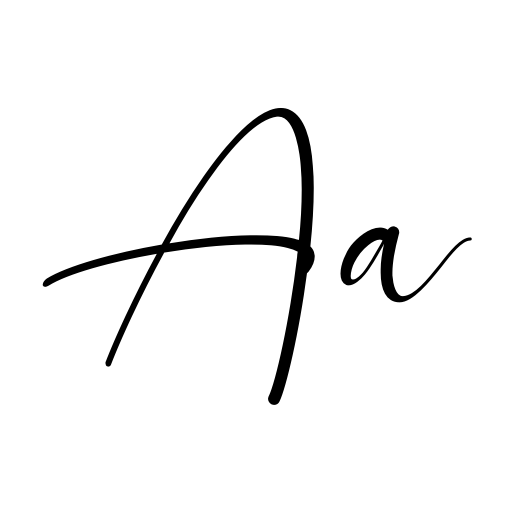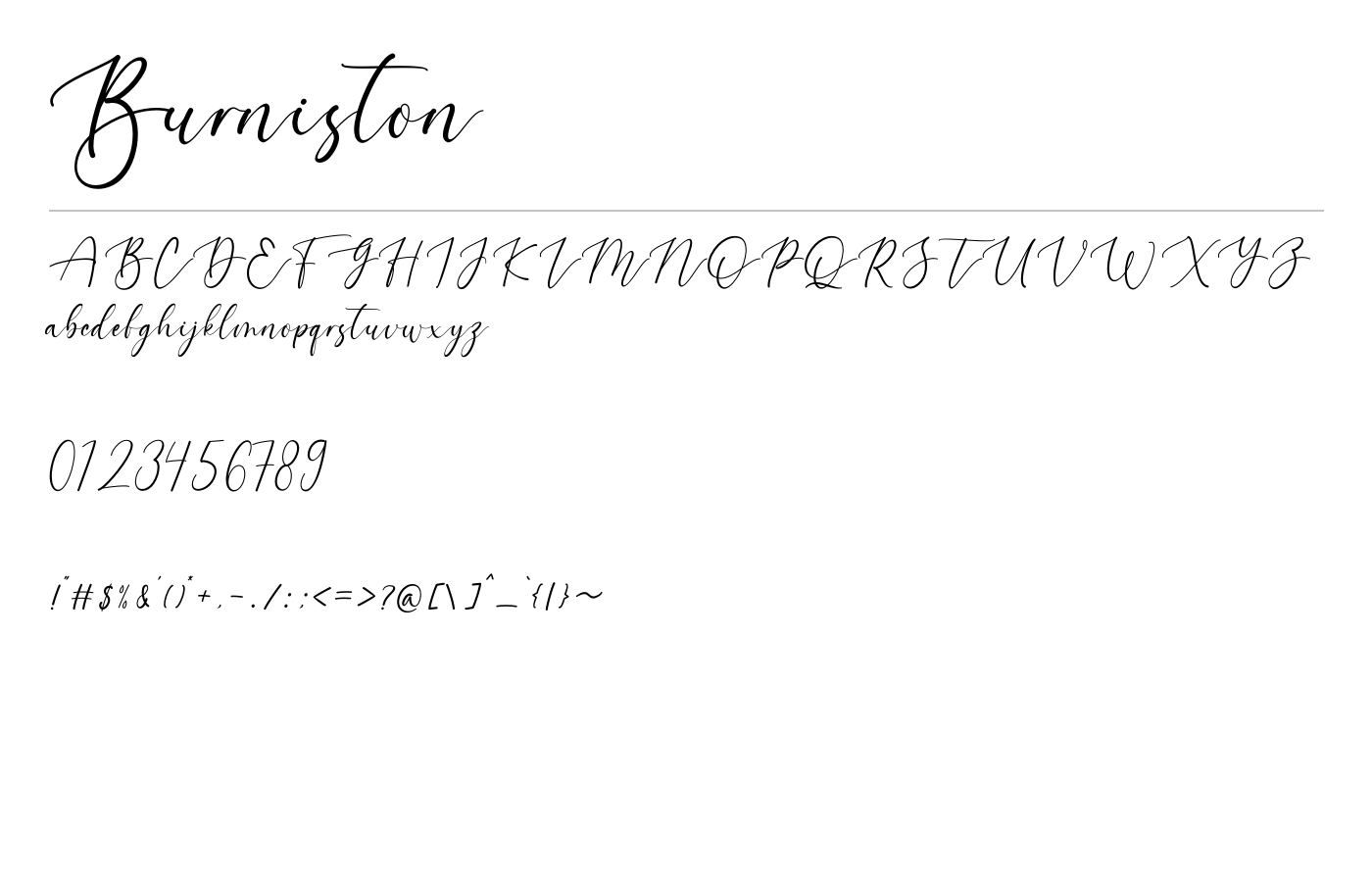
Burniston is a delicate and elegant script font characterized by its fine, flowing strokes and natural handwritten style. Its slender, slightly condensed letterforms with graceful curves make it perfect for adding a touch of sophistication and femininity to invitations, branding, and editorial designs. This font’s refined personality works especially well in luxury, fashion, and romantic contexts where a soft, personal feel is desired.
Burniston Font
About Burniston Font
| Font family | Burniston Font |
| Designer | Letterstype 2021 |